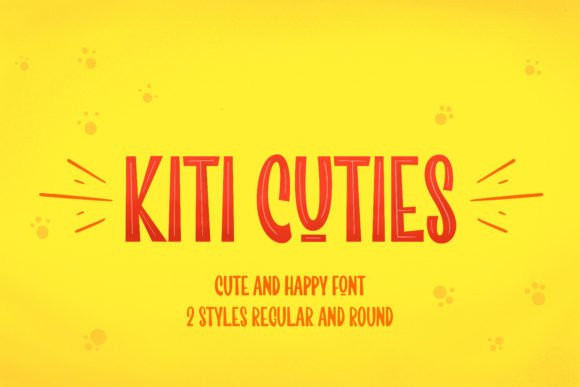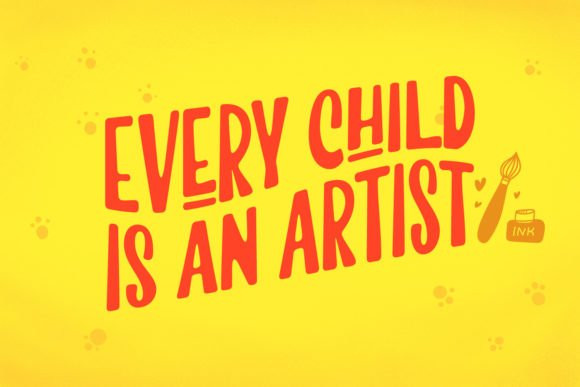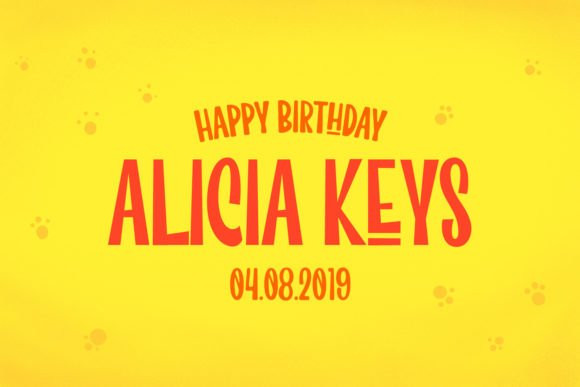
Kiti Cuties Font
Kiti Cuties is an incredibly cool and unique display font. Trendy and friendly, this font will elevate each of your creations. Use this font for your designs and explore its endless possibilities.